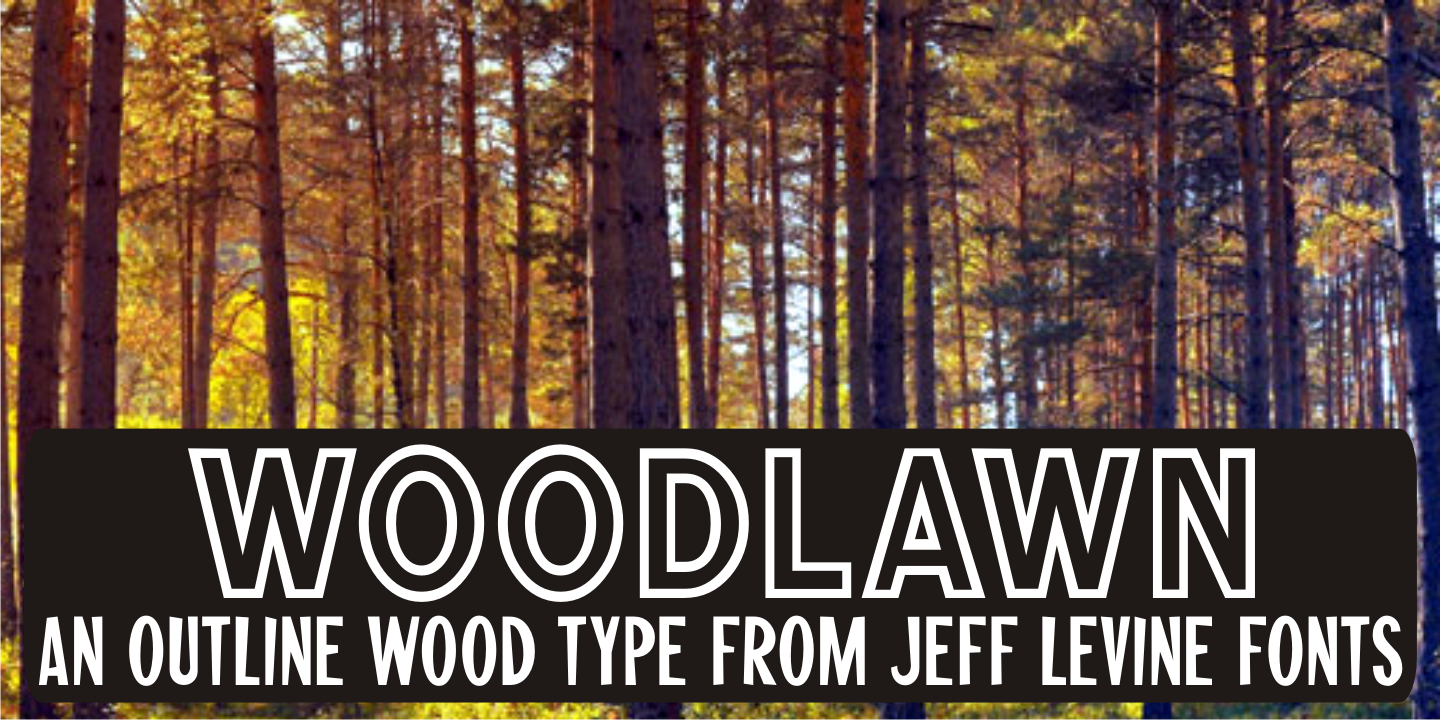
Woodlawn JNL is a display sans font published by Jeff Levine Fonts.
Woodlawn JNL is based on an open face wood type. A bold outline sans, this design is excellent for headline and titling applications.